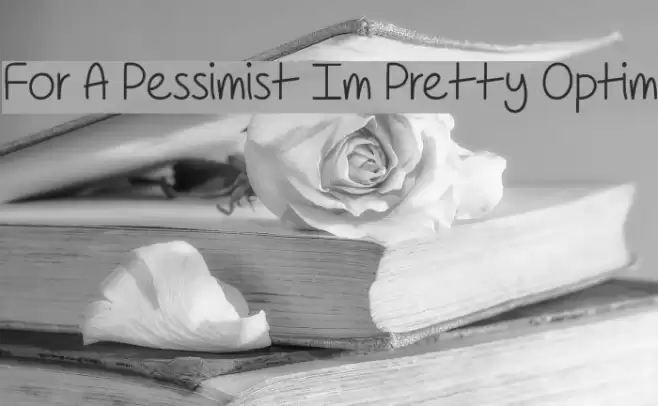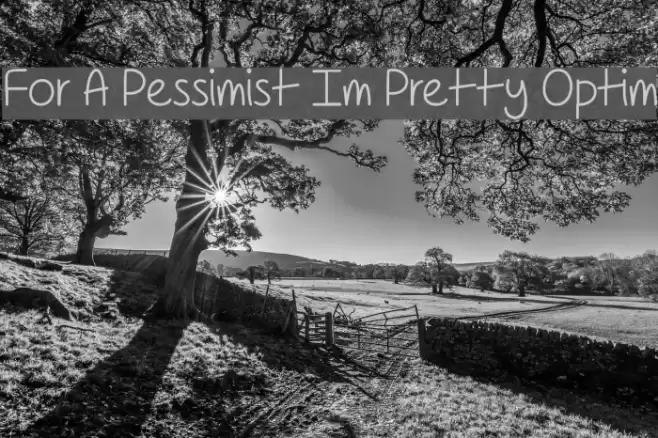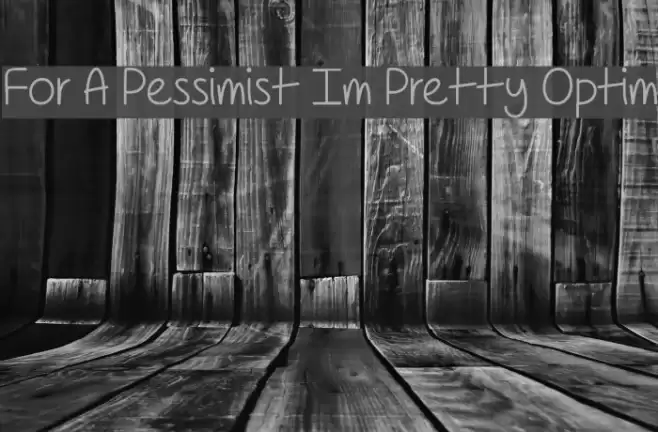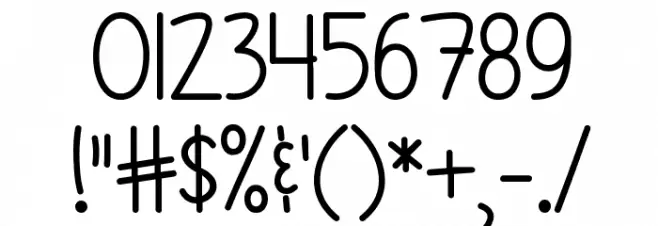
For A Pessimist Im Pretty Optim Font
For A Pessimist Im Pretty Optim Description
This playful and informal font features rounded, hand-drawn characters that convey a sense of friendliness and approachability. The letters are evenly spaced with a consistent stroke width, giving it a clean and legible appearance. The uppercase and lowercase letters maintain a uniform style, while the numerals and special characters complement the overall aesthetic. Its simplicity and charm make it suitable for a variety of creative projects.
A playful, hand-drawn font with rounded characters and a friendly vibe from Uncategorized fonts.
- Proposed Projects: Ideal for children's books, greeting cards, casual branding, and social media graphics.
- Overall Style: Casual
- Use Case: Headlines, Informal text, Creative projects